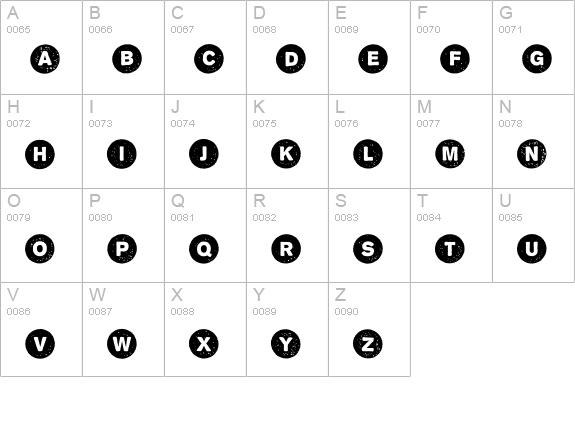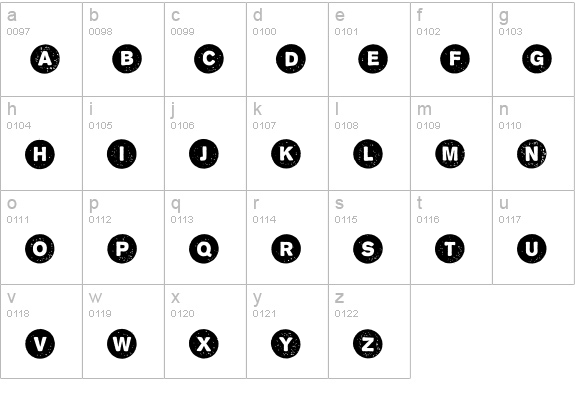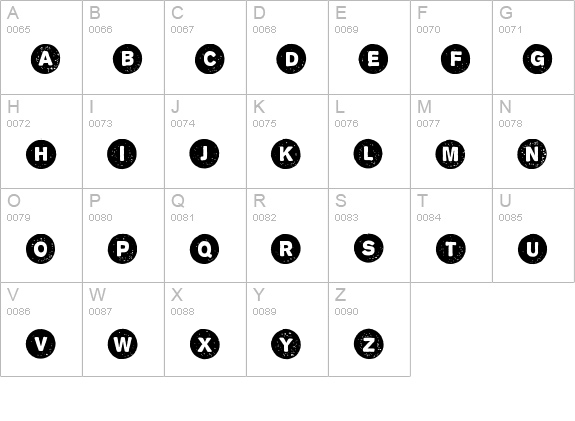
SectionIntersection Font Details
SectionIntersection font is a modern and sleek typeface that perfectly blends geometric shapes with sharp angles. This font is ideal for creating attention-grabbing headlines, logos, and posters, as it exudes a sense of sophistication and boldness. With its clean lines and distinctive features, SectionIntersection font adds a touch of elegance to any design project. The characters are carefully crafted to ensure legibility, making it suitable for both print and digital applications. Whether you're designing a magazine layout, website, or branding materials, this font will effortlessly elevate your work. One of the best things about SectionIntersection font is that it is available for free download at FontsMarket.com. This means that you can easily access this amazing font without having to spend a dime. Simply visit FontsMarket.com, search for SectionIntersection font, and download it to start using it in your projects immediately. Don't miss out on the opportunity to enhance your designs with this remarkable font. Download SectionIntersection font for free at FontsMarket.com and take your creations to the next level.